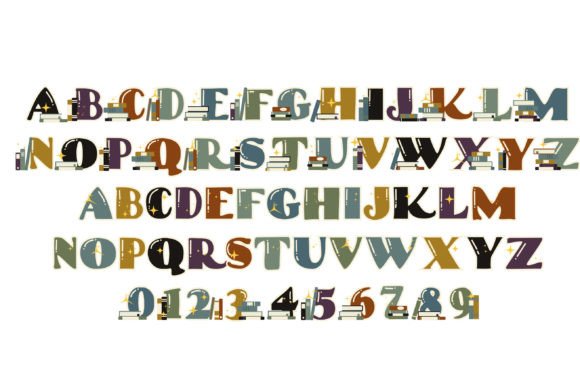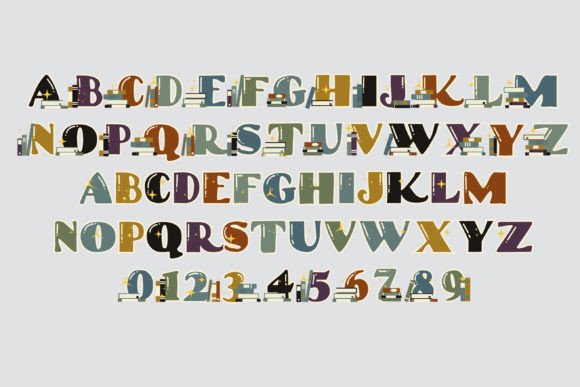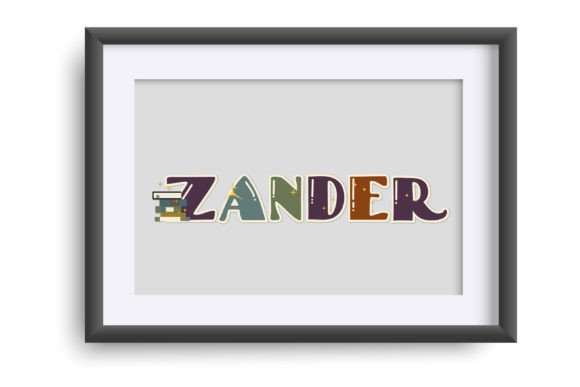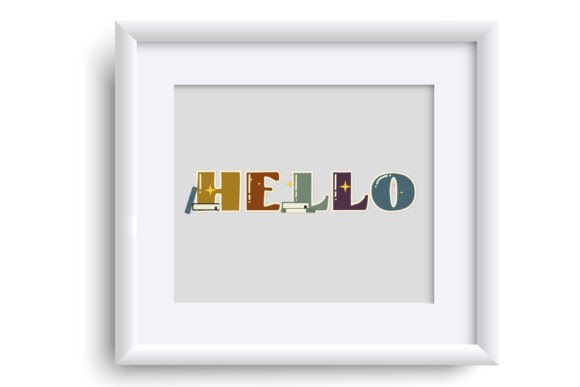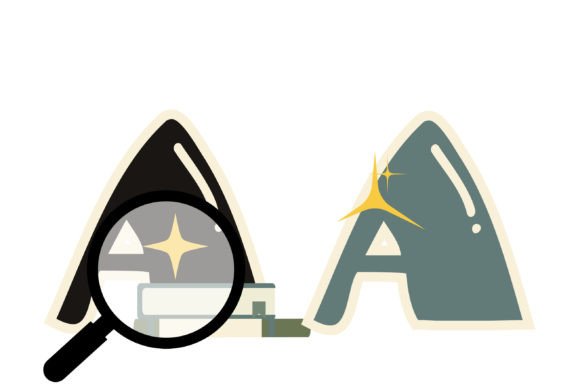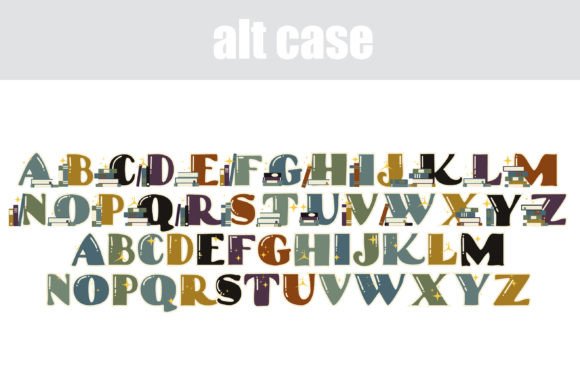
Unlock the Magic of Typography with Bookaholic Spells Font
Have you ever been in the middle of a creative project, staring at a blank page or screen, and suddenly a spark of inspiration strikes? For many designers, that moment is the best feeling in the world. It’s when the ideas start flowing, and the design begins to take shape. For those moments, you need a font that can cast a spell – and that’s exactly what the Bookaholic Spells Font is designed to do.
This enchanting font is a full-color, slab serif masterpiece that will transport your designs to a world of magic and wonder. With its magical spell books and alt case options, the Bookaholic Spells Font is the perfect addition to any designer’s toolkit. Whether you’re working on a project that requires a touch of whimsy or a dash of sophistication, this font will add a level of personality that’s hard to find with other typography options.
Key Features of Bookaholic Spells Font
- Unique Characteristics: Bookaholic Spells Font features a unique blend of magical and mystical elements, with intricate details and ornaments that evoke a sense of wonder and enchantment.
Bookaholic Spells Font Review
As a designer, I’ve had the chance to play around with the Bookaholic Spells Font, and I have mixed feelings about it. Here’s what I think.
- Unique aesthetic: The font has a quirky, magical vibe that’s perfect for book-themed designs or fantasy projects.
- Expressive: The letters have a lot of character, making it great for titles, headings, and emphasis.
- Readable: Despite its whimsical feel, the font is surprisingly easy to read, even at smaller sizes.
- Limited flexibility: The font is quite rigid in terms of its design, which can make it difficult to use in certain situations.
- Not ideal for body text: While the font is great for titles and headings, it’s not the best choice for large blocks of body text.
- May not be suitable for all audiences: The font’s fantasy theme may not be to everyone’s taste, so be sure to consider your target audience.
Overall impression
The Bookaholic Spells Font is a fun, expressive choice for designers who want to add a touch of magic to their projects. While it’s not perfect, it’s a great option for titles, headings, and emphasis. Just be mindful of its limitations and use it thoughtfully.
Bookaholic Spells Font: A Practical Application Guide
Bookaholic Spells Font is perfect for creating eye-catching book covers, blog posts, and social media graphics.
Bookaholic Spells Font is ideal for creating intricate book designs, posters, and infographics.
Bookaholic Spells Font is perfect for creating engaging presentations, reports, and documents.
Bookaholic Spells Font is perfect for:
- Book covers and book titles
- Blog posts and articles
- Social media graphics and posts
- Posters and infographics
For the best results, use Bookaholic Spells Font in conjunction with bold, contrasting colors and creative layouts.